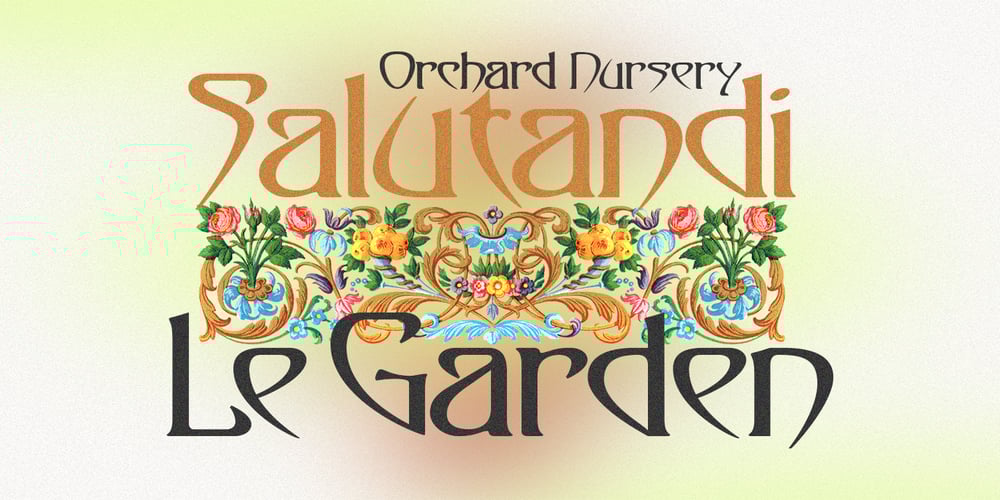
Tylaco Font Family was designed by Sukjana Almunandar and published by Alcode. Tylaco contains 1 styles and family package options. Tylaco is a display typeface. Tylaco come with Regular style, it will make this typeface can be used in all design projects and works perfectly for pairing with script typeface or handmade fonts, Headlines, Posters, Packaging, T-shirts, Postcards, Invitation, Wedding Sign, Sign Painting, Signboard, and much more.Try Tylaco, enjoy the richness of OpenType features and let her fun and elegant excitement make you happy and enhance your creativity! You can use this font very easily.• Multilingual Support If you do not have programs that support OpenType features like Adobe Illustrator and CorelDraw X Versions, you can access all alternative flying machines using Font Book (Mac) or Character Map (Windows)